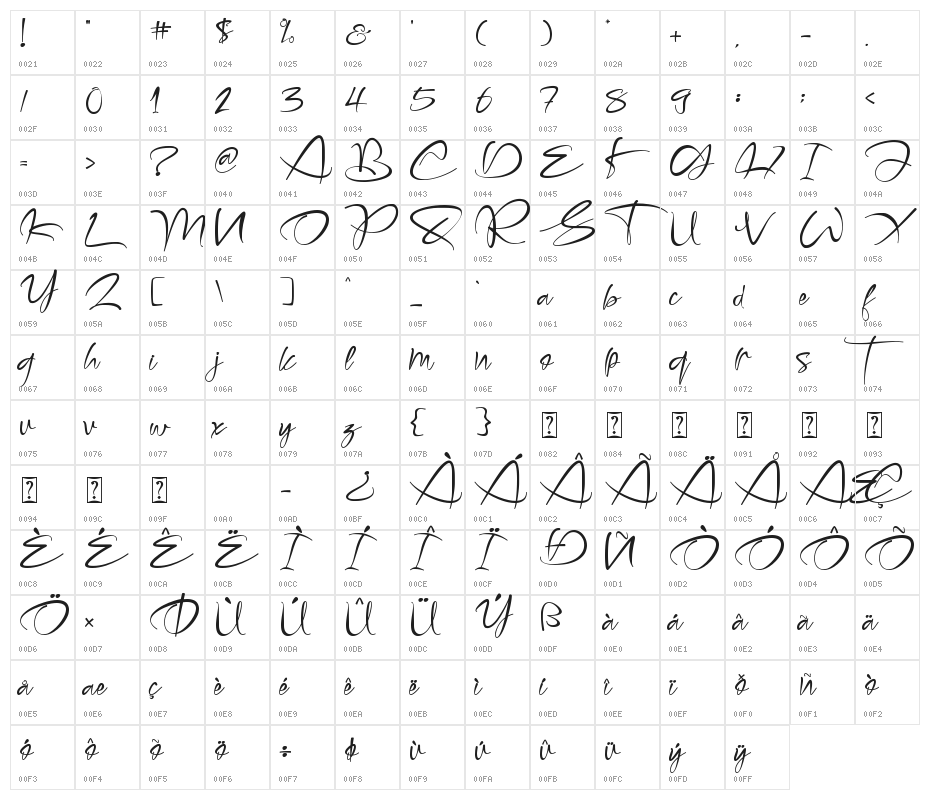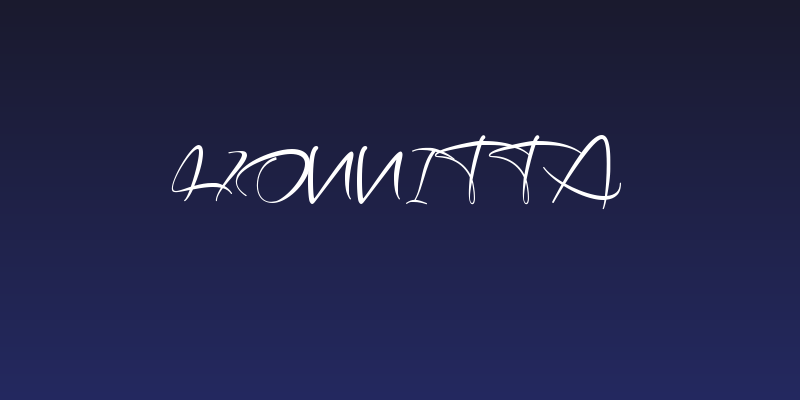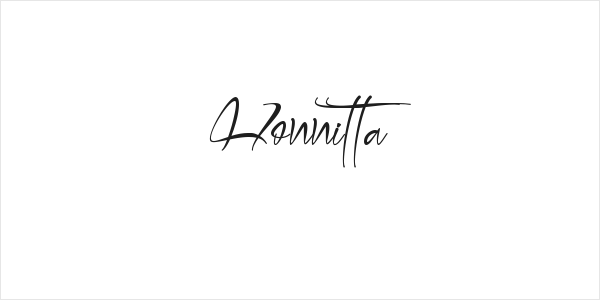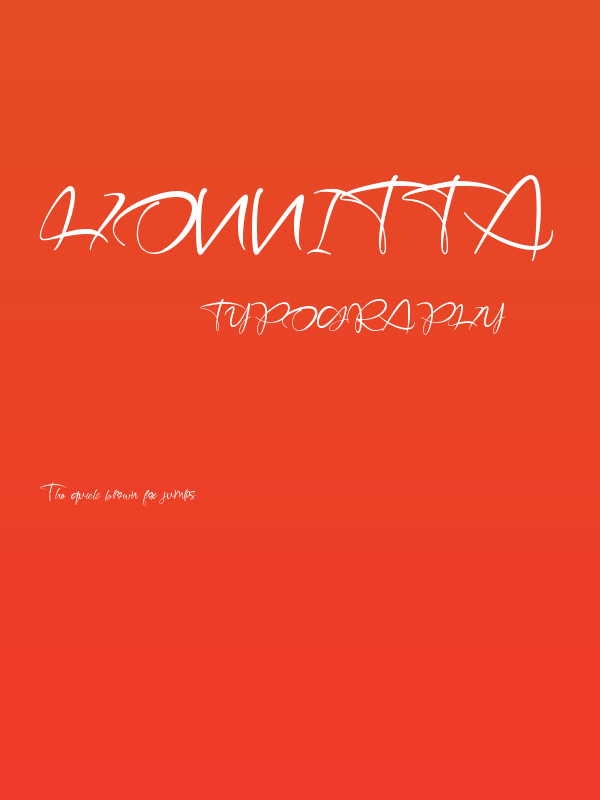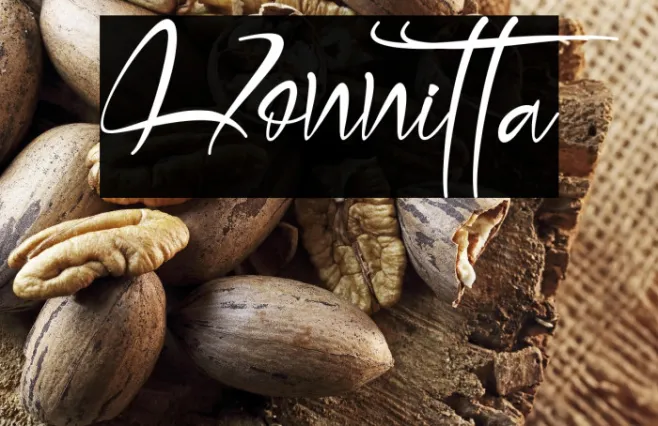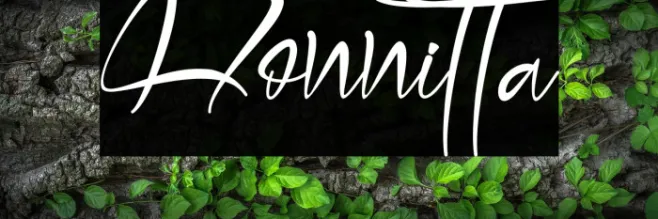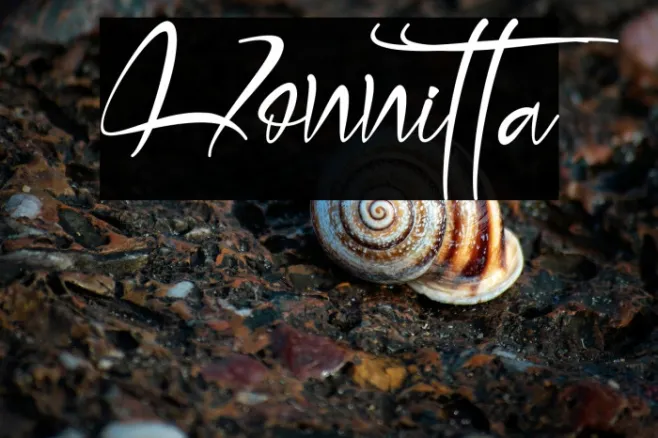
Honnitta Font
Honnitta Description
This font features a dynamic and expressive handwritten style, characterized by its fluid and interconnected strokes. The uppercase letters exhibit a graceful flow with varying line thickness, creating a sense of movement and elegance. The lowercase letters maintain this fluidity, with some characters extending below the baseline, adding to the font's artistic flair. The numerals are bold and slightly slanted, complementing the overall style. Special characters are creatively designed, maintaining consistency with the font's handwritten aesthetic. This font's unique style makes it suitable for projects that require a personal and artistic touch.